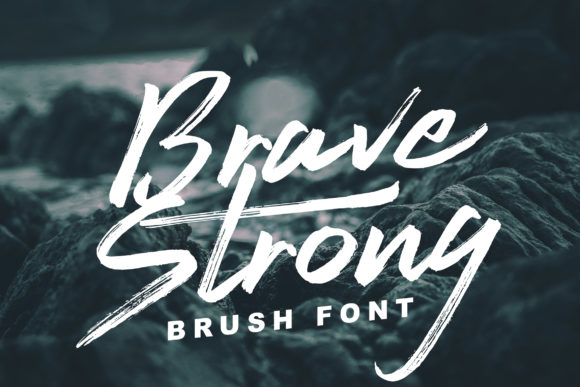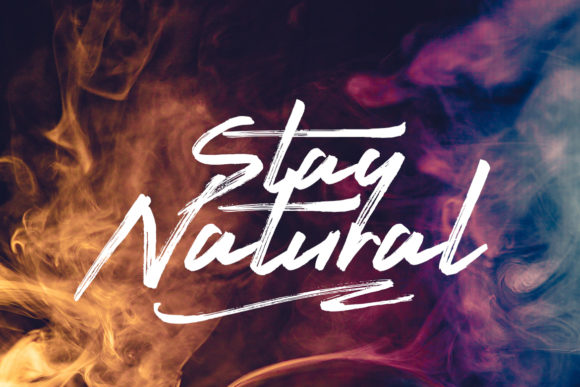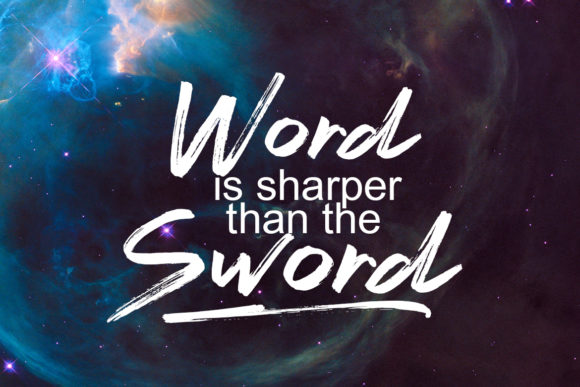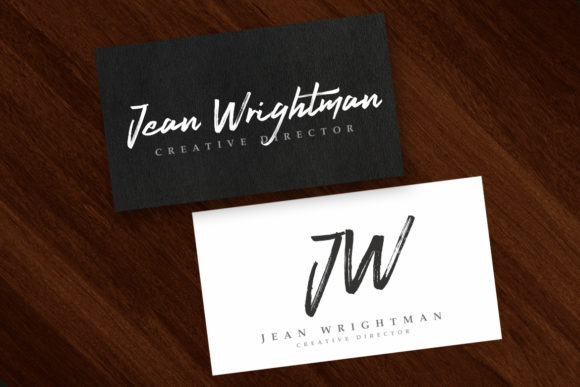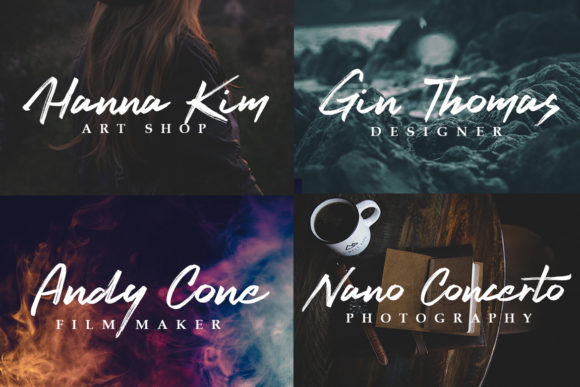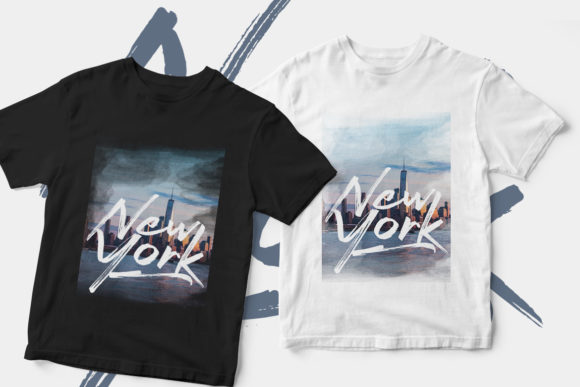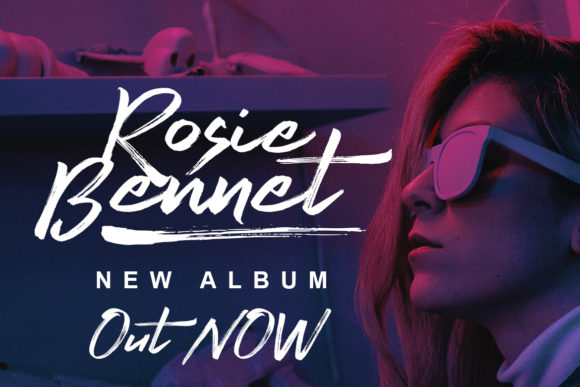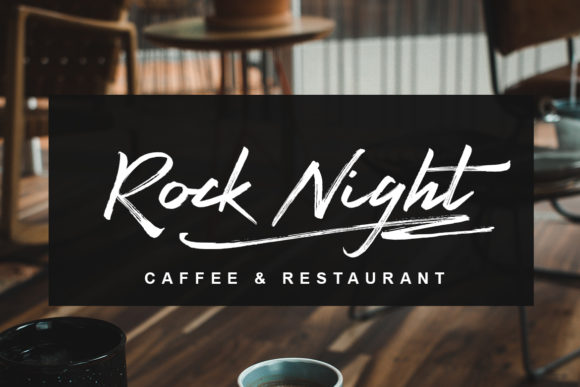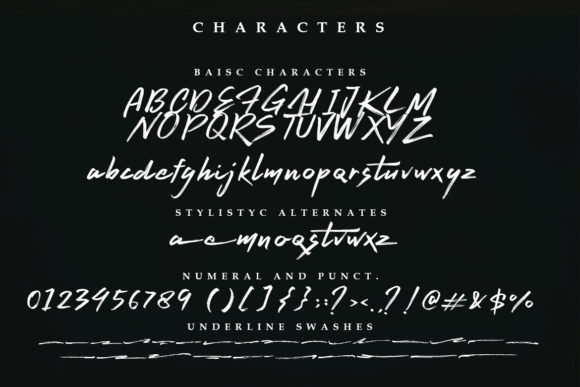
Brave Strong Font
About Brave Strong Font
Brave Strong is a bold and beautiful handwritten font with an incredibly organic feel. It will put a strong and urban twist on any design project!